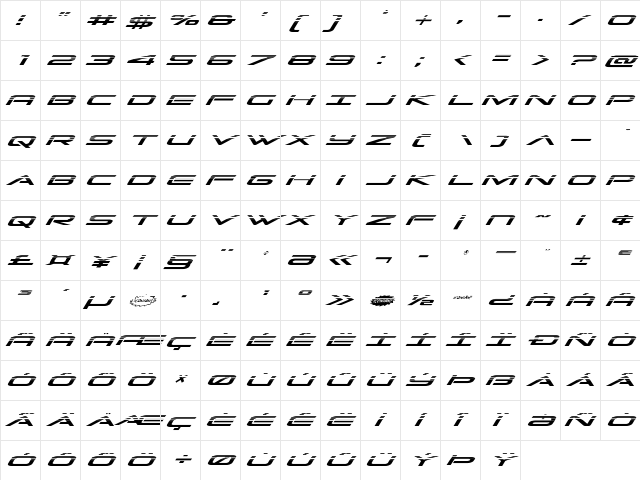
Grand Sport Halftone Italic Italic
Design Context for Grand Sport Halftone Italic Typeface
Grand Sport Halftone Italic brings high-energy athletic personality to the page — its confident, muscular forms are built for impact. The dynamic lean of this cut emphasises speed and emphasis in any layout.
Built for sports team identities, athletic apparel, event posters, and high-energy promotional material.
Pro Tip: Grand Sport Halftone Italic thrives on contrast — try it large, bold, and tight against a clean background for maximum visual impact.